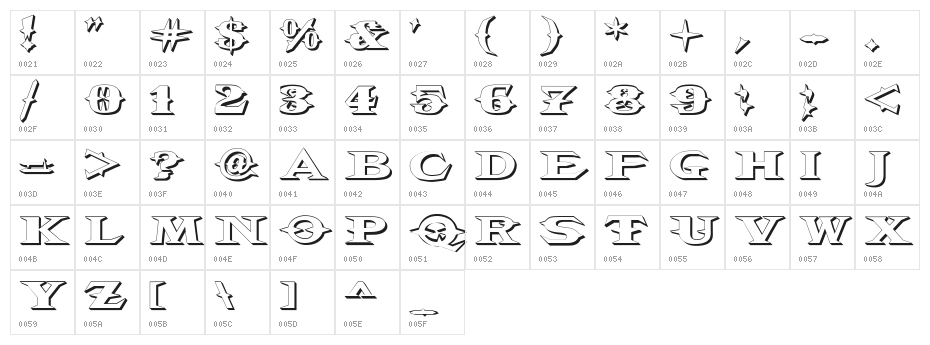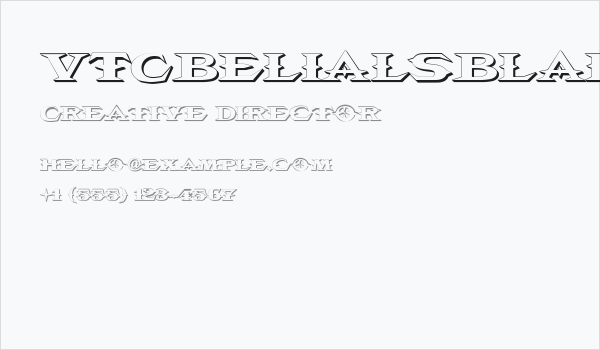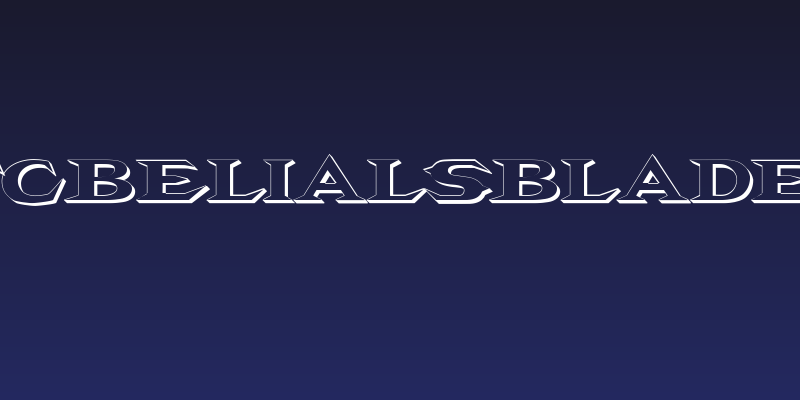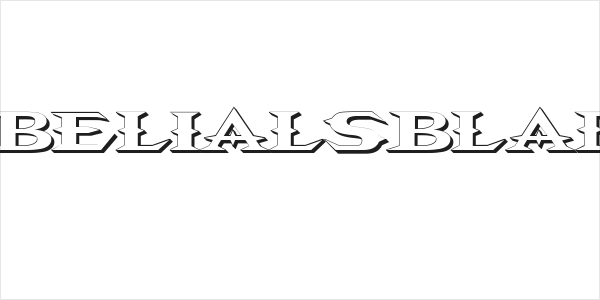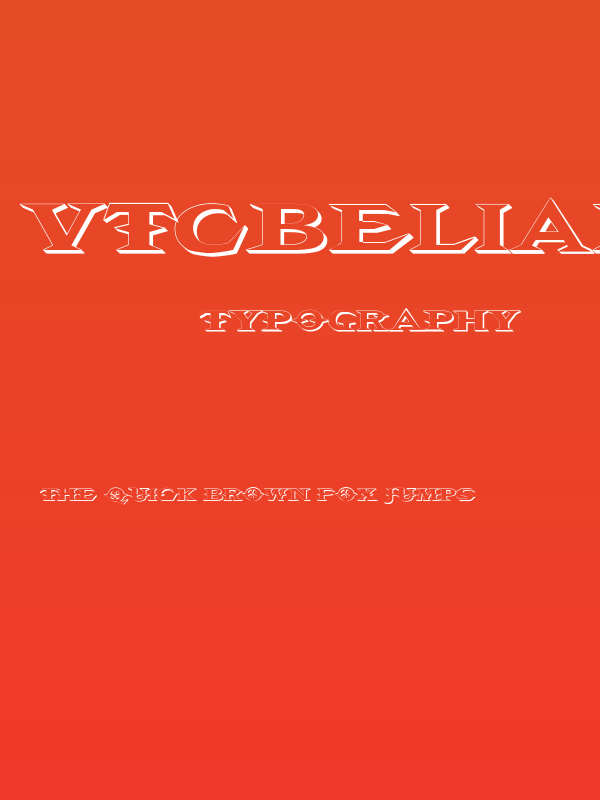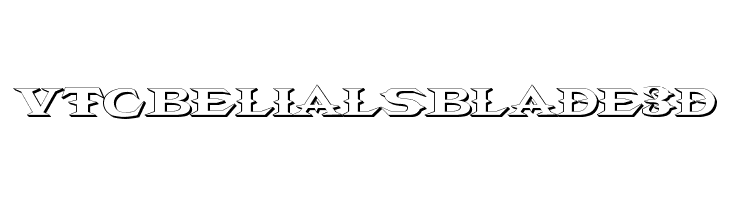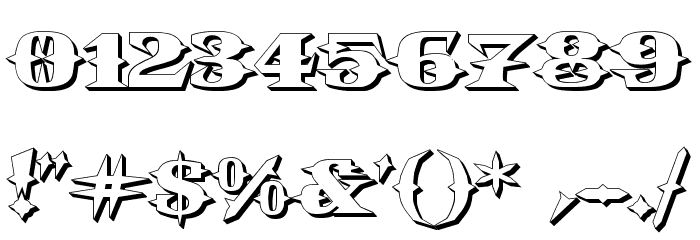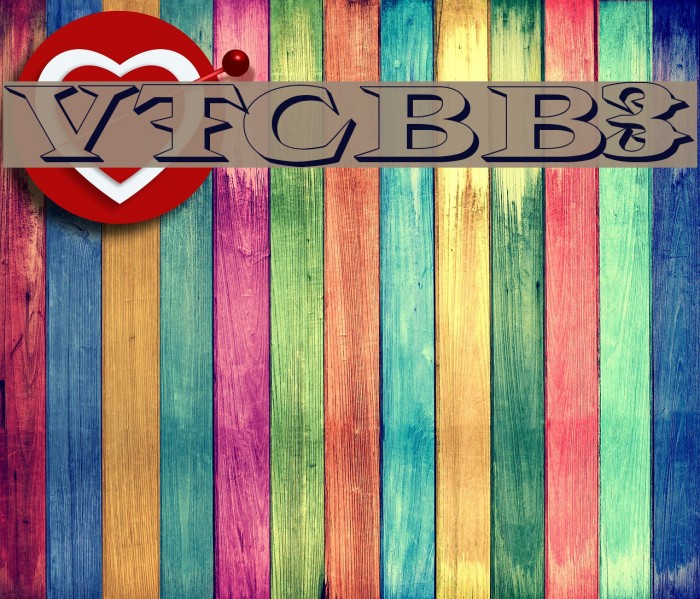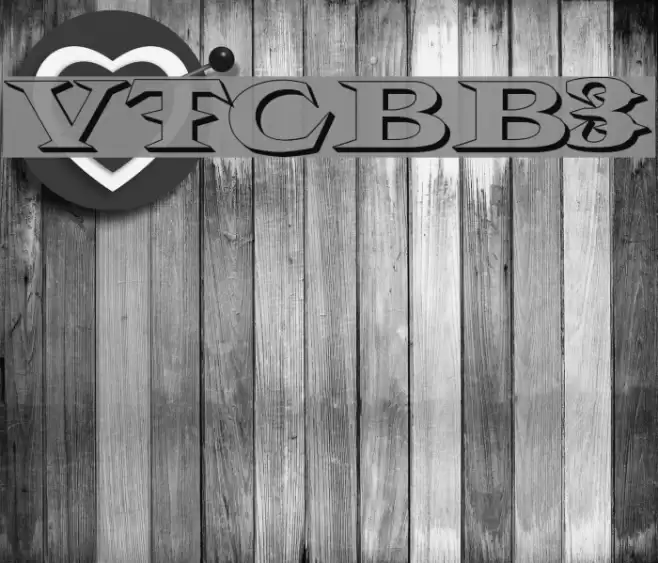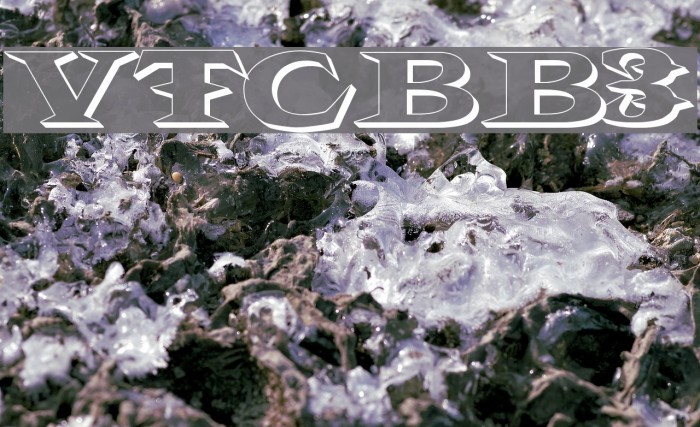
VTCBelialsBlade3d Font
VTCBelialsBlade3d Description
This font features a bold and edgy design with sharp, angular lines and a three-dimensional effect that gives it a striking appearance. The characters are outlined with a shadow that enhances their depth, making them stand out prominently. The uppercase and lowercase letters maintain a consistent style, with intricate details that add to the font's unique character. Numbers and special characters are designed with the same boldness and attention to detail, ensuring a cohesive look across all elements. This font is ideal for projects that require a strong visual impact and a touch of modernity.
| Overall Style | Modern, Decorative |
| Proposed Projects | Ideal for video game titles, movie posters, album covers, and branding that requires a bold statement. |